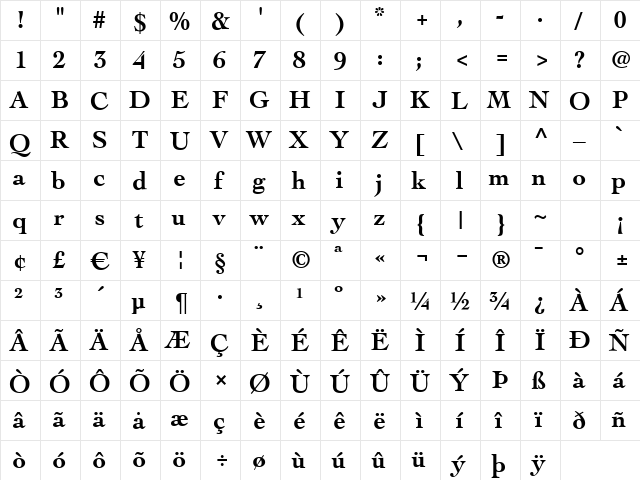
Cockney Bold Font Preview
Cockney Bold
Design Context for Cockney Typeface
Cockney is a composed and adaptable typeface that performs quietly and consistently across a wide range of design contexts. Its bold stroke weight gives it real presence on the page.
Pro Tip: Use Cockney in both headline and body roles to test its range before committing to a single application.